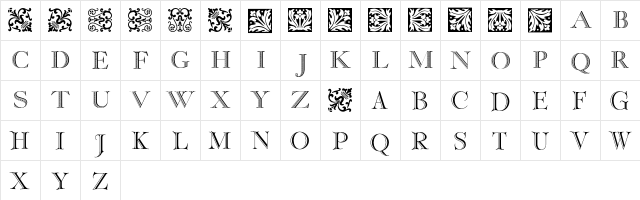
Kudos Kaps One NF Regular
Design Context for Kudos Kaps One NF Typeface
Kudos Kaps One NF is a composed and adaptable typeface that performs quietly and consistently across a wide range of design contexts.